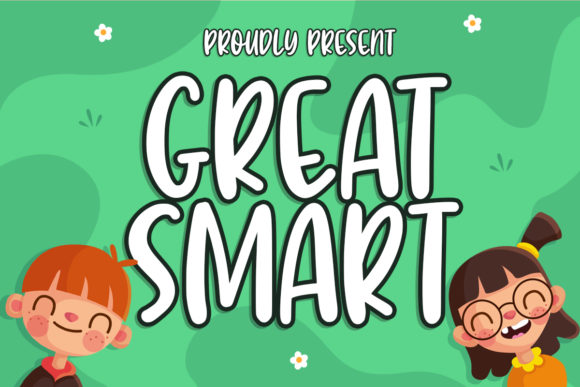
Great Smart Font: Add a Touch of Whimsy to Your Creative Projects
Are you looking for a font that can add a dash of fun and quirkiness to your creative projects? Look no further than the Great Smart font. This enchanting handwritten font is designed to turn any creative idea into a true standout, making it perfect for kids and school projects, as well as any design project that requires a touch of whimsy.
What is Great Smart Font?
Great Smart font is a unique and charming handwritten font that embodies fun, quirkiness, and authenticity. Its childlike playfulness makes it an excellent choice for projects that require a lighthearted and carefree touch. The font’s irregularities and imperfections give it a personal and human feel, making it perfect for designers who want to add a touch of personality to their work.
Key Features of Great Smart Font
- Handwritten with love: Great Smart font is carefully crafted by hand to give it a unique and personal touch.
- Childlike playfulness: The font’s playful and whimsical nature makes it perfect for kids and school projects.
- Quirky and authentic: Great Smart font’s irregularities and imperfections give it a genuine and authentic feel.
- Highly versatile: The font can be used for a wide range of design projects, from posters and flyers to digital graphics and more.
Uses of Great Smart Font
Great Smart font is an incredibly versatile font that can be used for a wide range of design projects. Here are some ideas to get you started:
- Kids and school projects: Great Smart font is perfect for school posters, flyers, and other educational materials.
- Digital graphics: Use the font to create fun and engaging social media graphics, blog posts, and other digital content.
- Posters and flyers: Great Smart font is ideal for creating eye-catching posters and flyers for events, promotions, and more.
- Branding and packaging: The font can be used to create unique and memorable brand identities and packaging designs.
Benefits of Using Great Smart Font
Using Great Smart font in your design projects offers a range of benefits, including:
- Instant recognition: The font’s unique and playful design makes it instantly recognizable.
- Emotional connection: Great Smart font’s childlike playfulness can help create an emotional connection with your audience.
- Flexibility: The font can be used for a wide range of design projects, from digital graphics to print materials.
- Easy to read: Despite its playful nature, Great Smart font is easy to read and understand.
Tips for Using Great Smart Font
Here are some tips for getting the most out of Great Smart font:
- Use it sparingly: Great Smart font is best used sparingly to add a touch of whimsy to your design.
- Pair it with other fonts: Experiment with pairing Great Smart font with other fonts to create a unique and interesting design.
- Adjust the size and color: Play around with different sizes and colors to find the perfect combination for your design.
- Experiment with different styles: Try using Great Smart font in different styles, such as bold or italic, to add variety to your design.
Great Smart font is a unique and charming handwritten font that can add a touch of fun and quirkiness to your creative projects. Its childlike playfulness and irregularities make it perfect for kids and school projects, as well as any design project that requires a lighthearted and carefree touch. With its versatility, ease of use, and range of benefits, Great Smart font is an excellent choice for designers looking to add a dash of whimsy to their work.